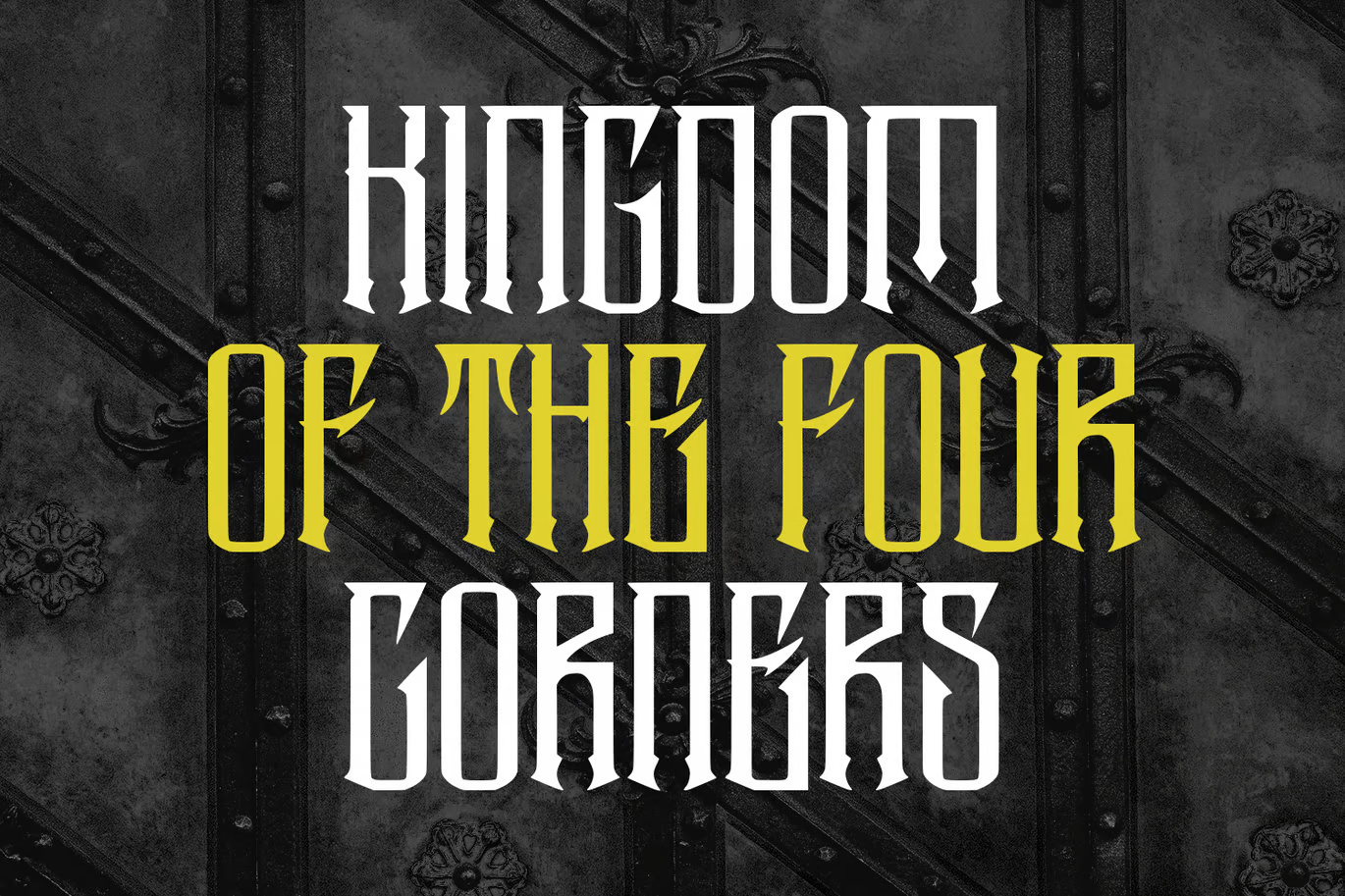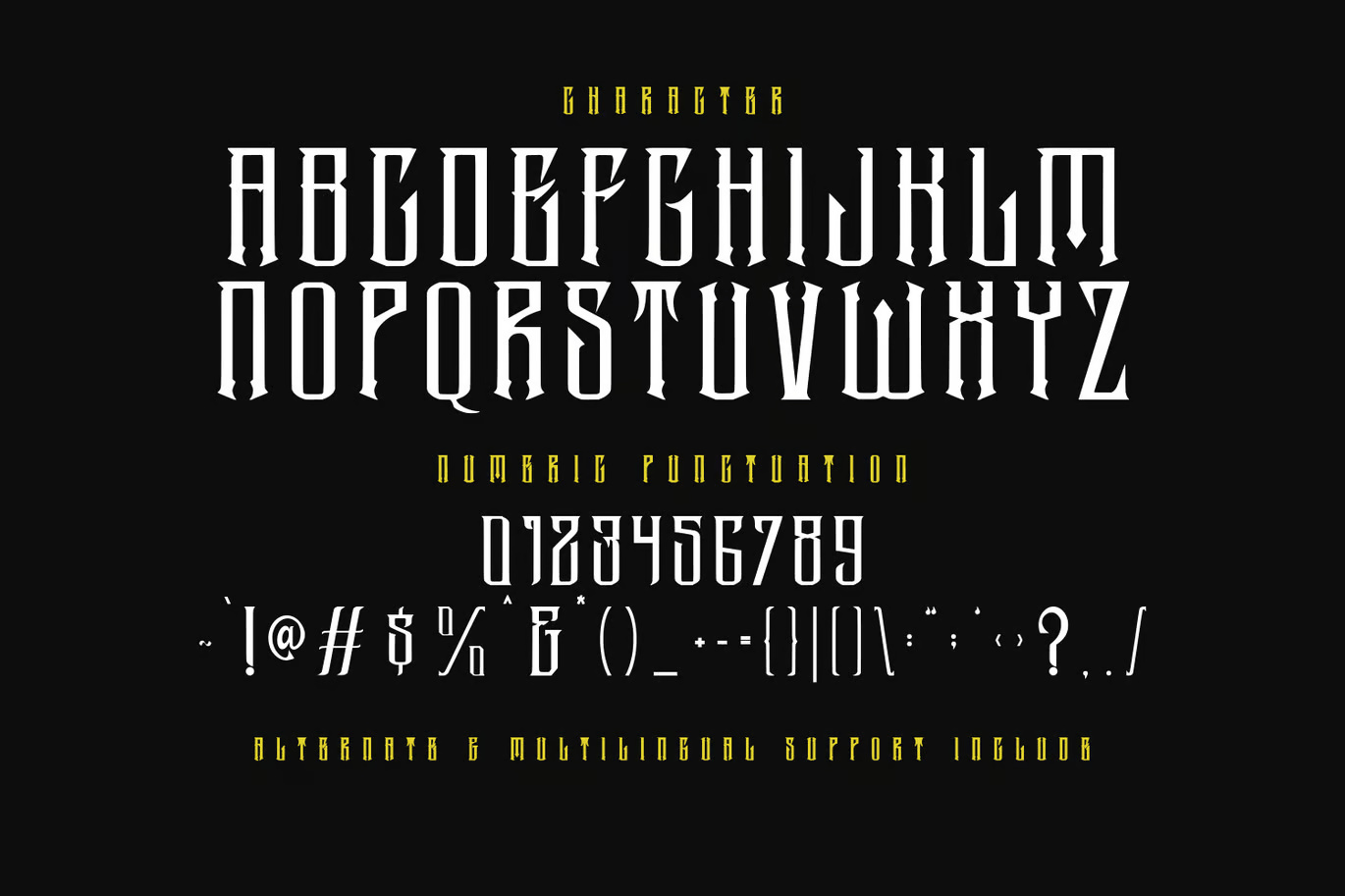
Brigizh Blackletter Display Font
Brigizh Blackletter Font is a meticulously handcrafted Modern Victorian typeface that seamlessly blends classic elegance with contemporary design. Inspired by the refined artistry of early 19th-century typography, this font brings a timeless, vintage charm into the modern era. With its exquisite details, ornate strokes, and stunning alternates, Brigizh is perfect for creating bold, sophisticated designs that stand out.
Brigizh Blackletter Decorative Display Font
Brigizh Blackletter Display Font